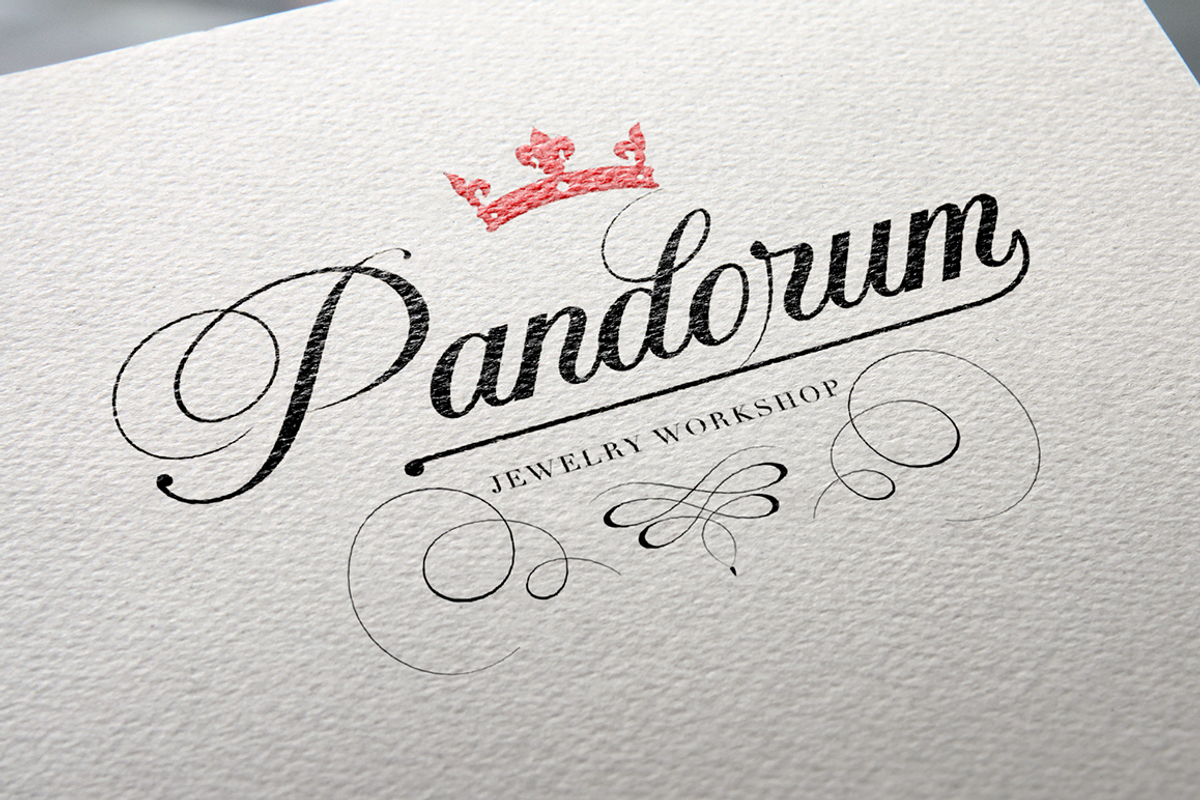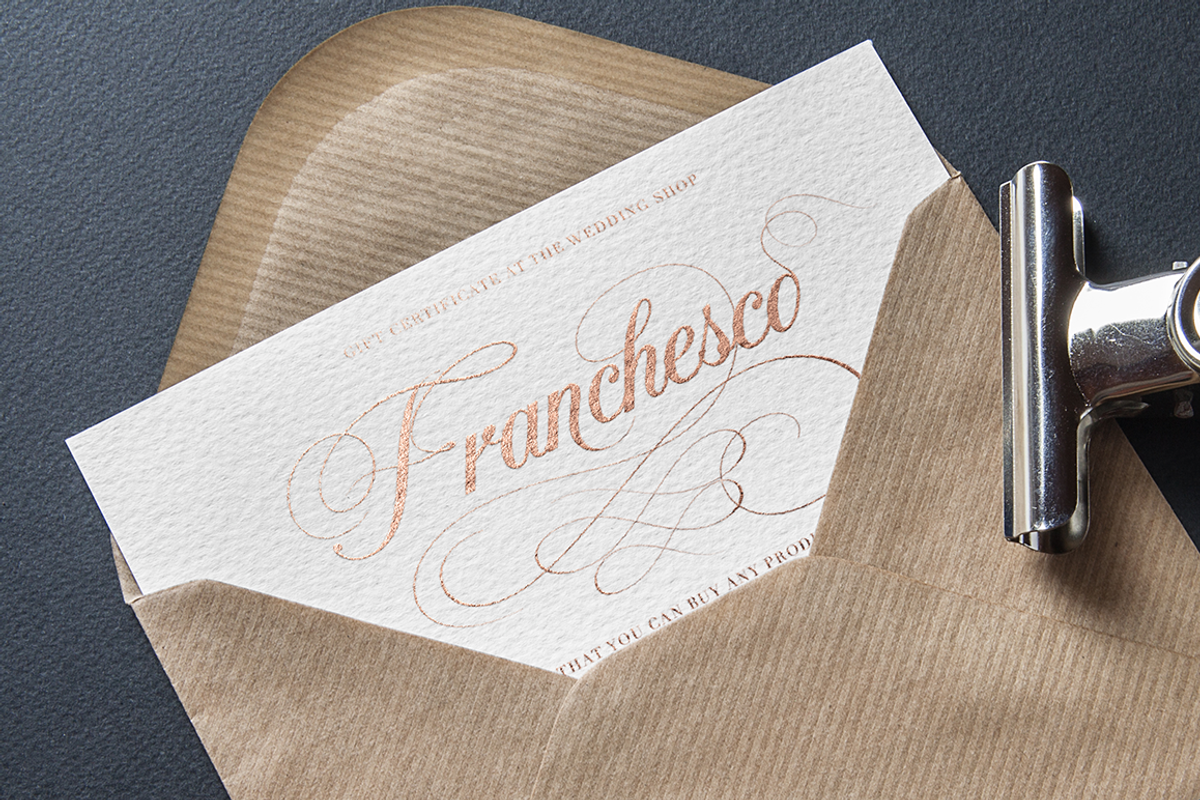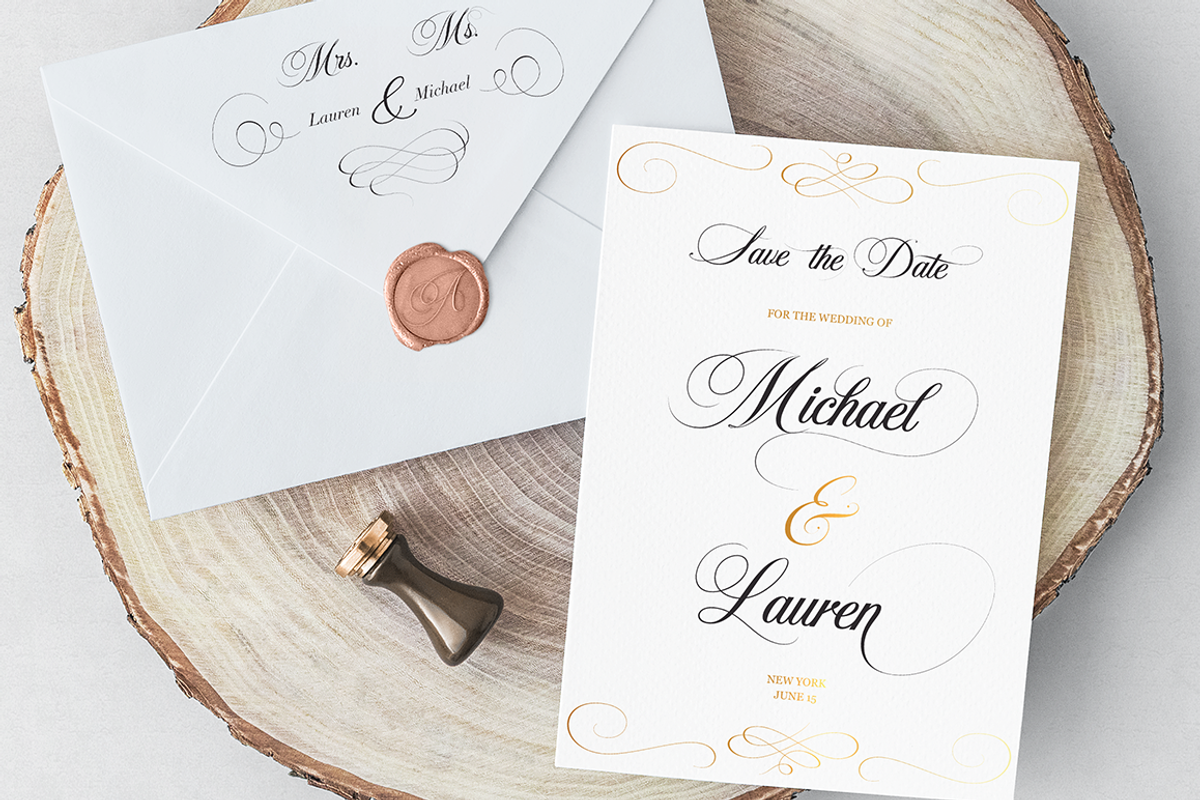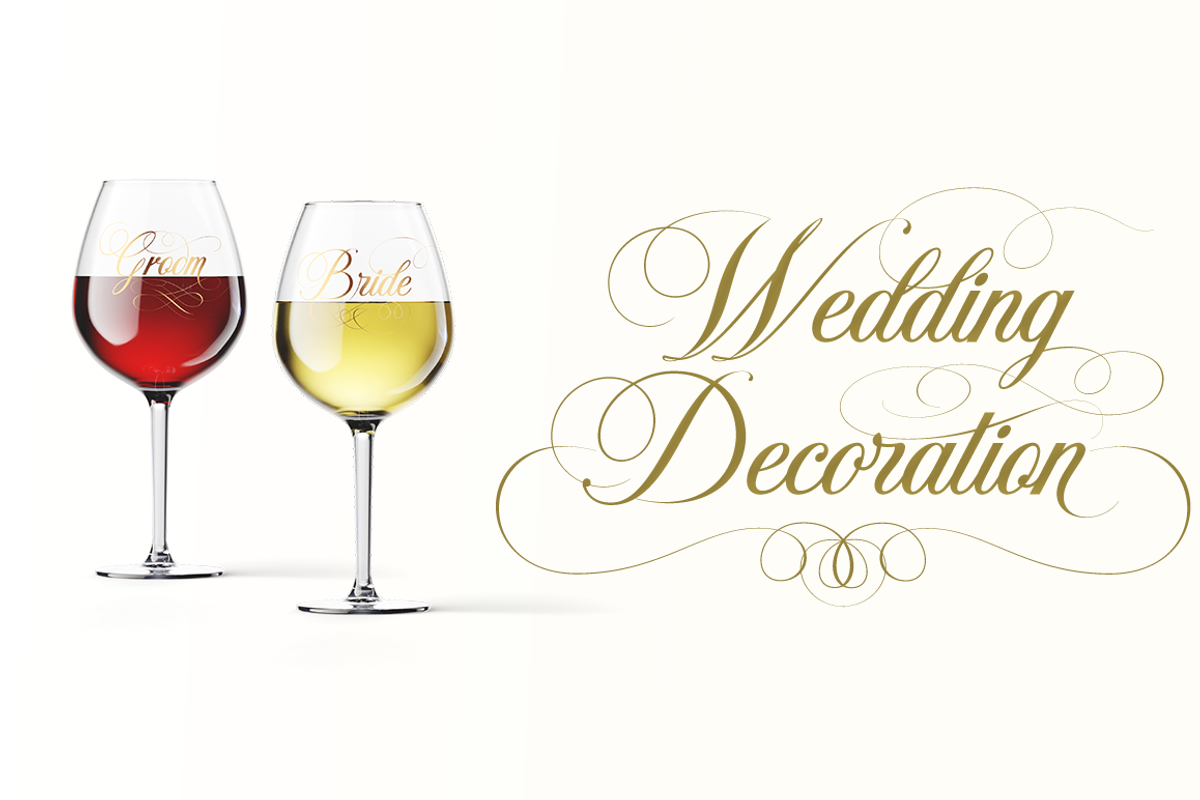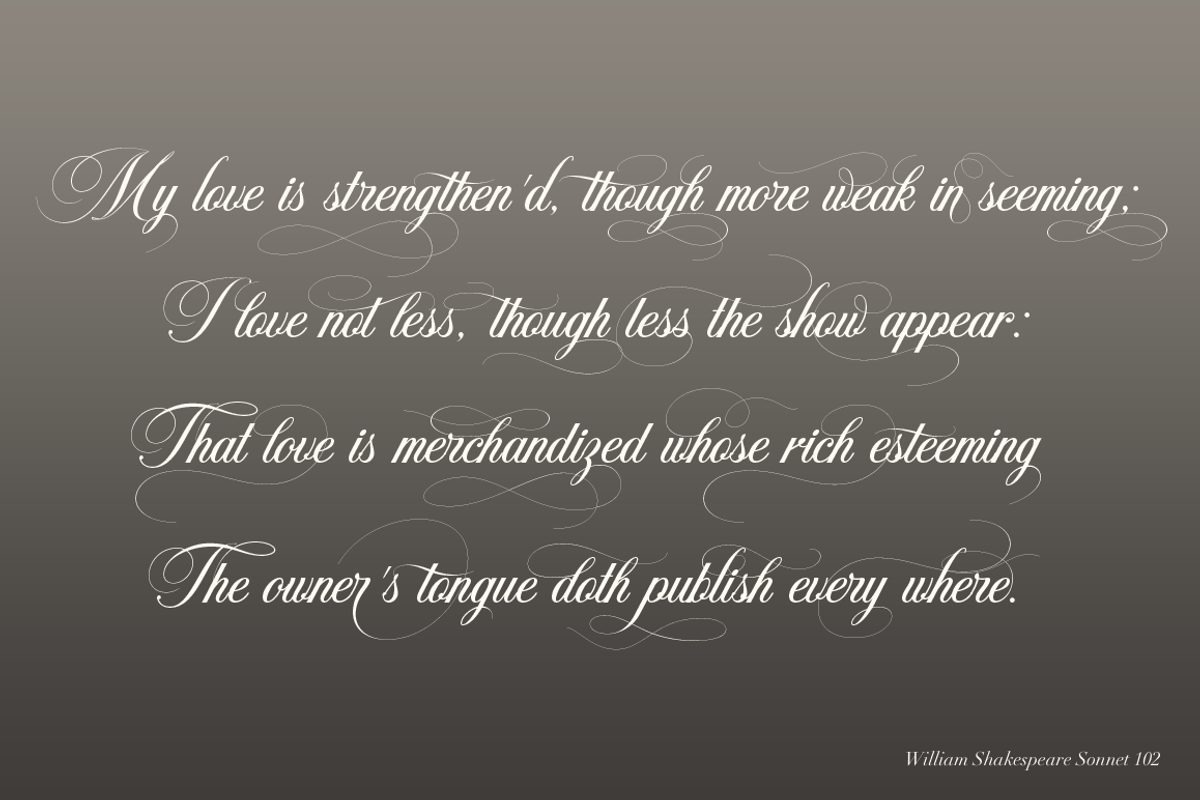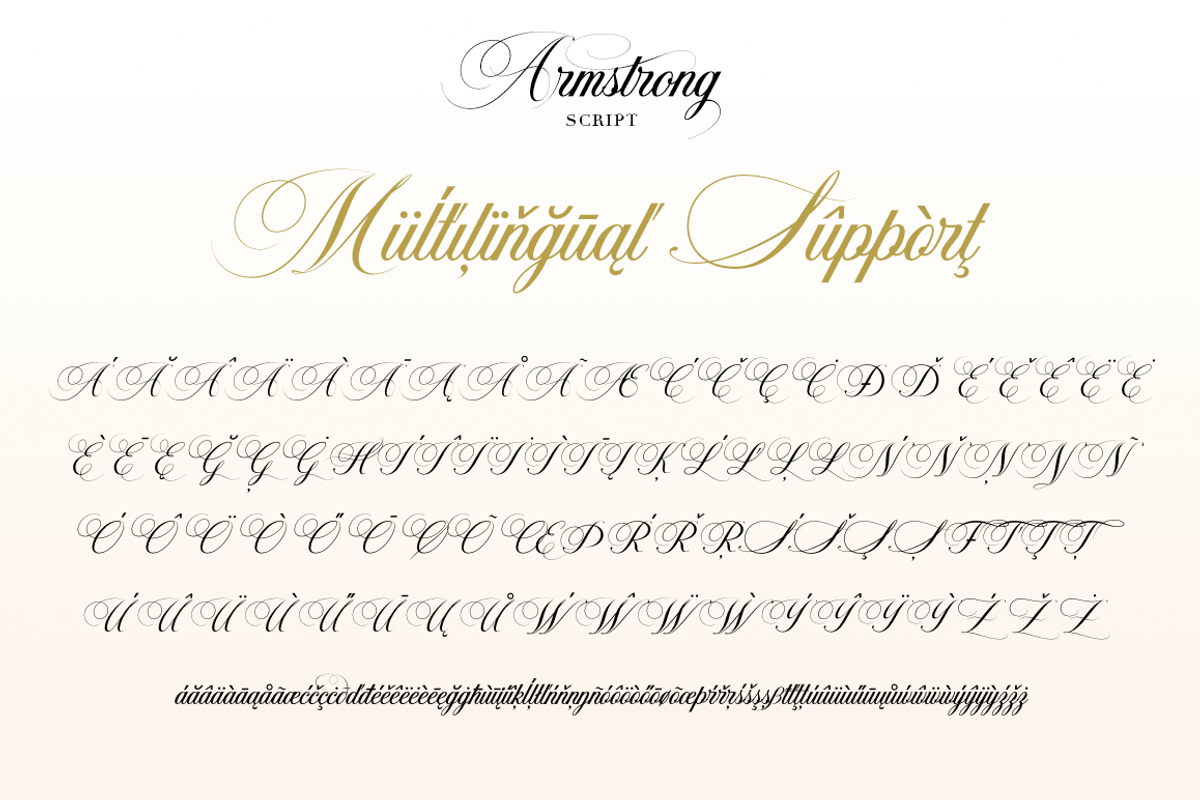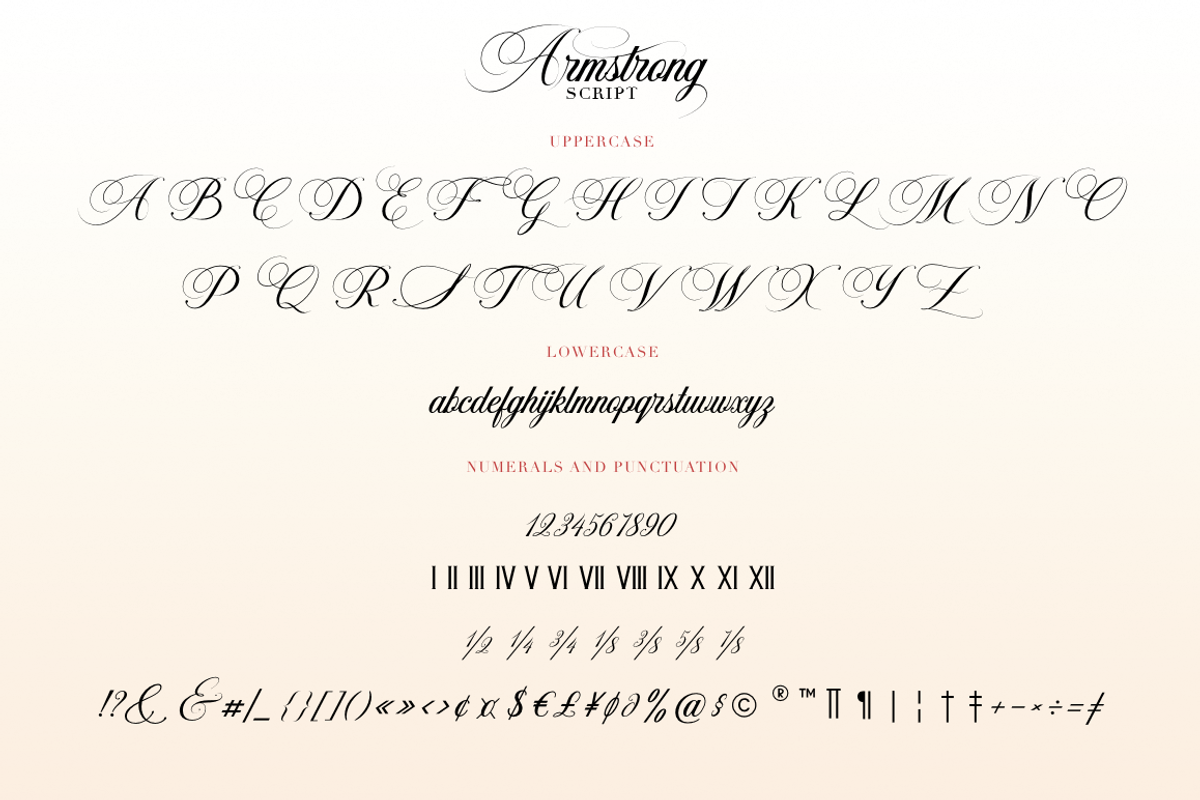
Armstrong
Armstrong- a new premium calligraphy font.
This font is ideal for branding and decorate your any project, are perfect for wedding invitation or your blog. Also with their help, you can create a logo or beautiful frame for your home. Or just use for your small business, book covers, stationery, marketing, magazines and more. Special for you I prepared a lot alternates and swashes.
Following international symbols support: ÀÁÂÃÄÅĄÇĆÈÉÊËĘÌÍÎÏÐÑŃŁÒÓÔÕÖØÙÚÛÜŚŠŸÝŹŻŽßàáâãäåçèéêëìíîïðñòóôõöøùúûüýÿąćęłńśšźżž